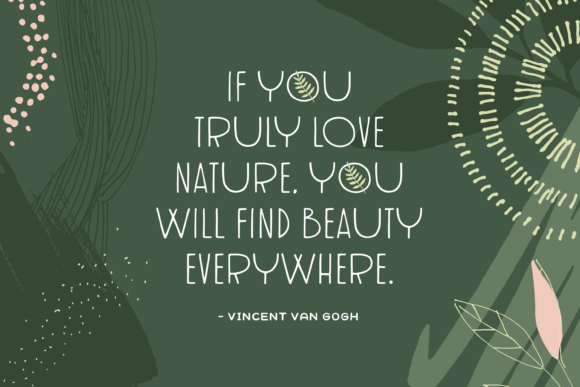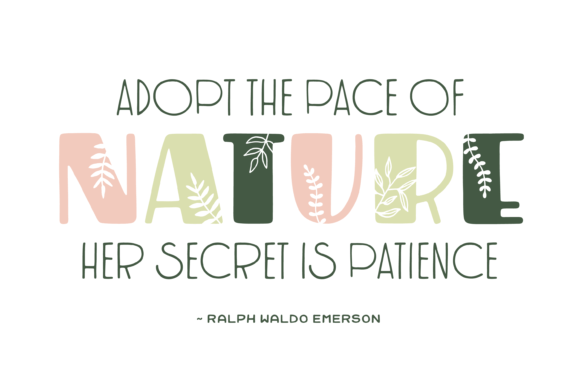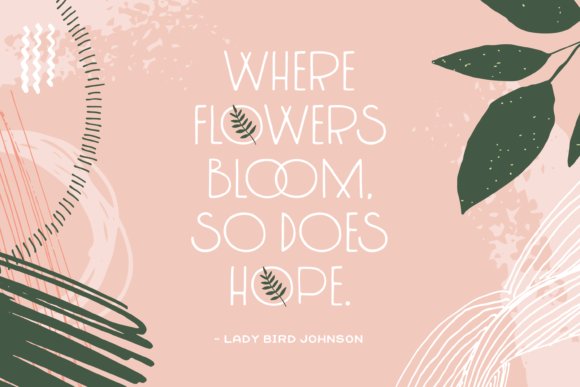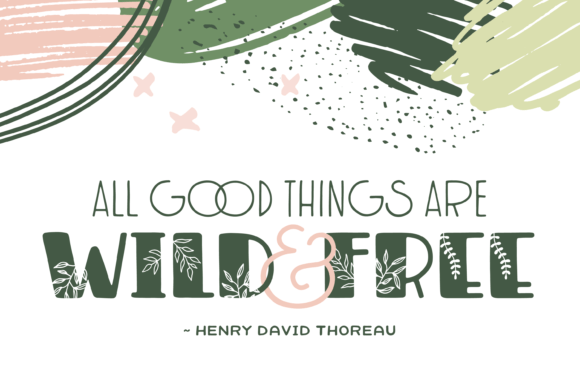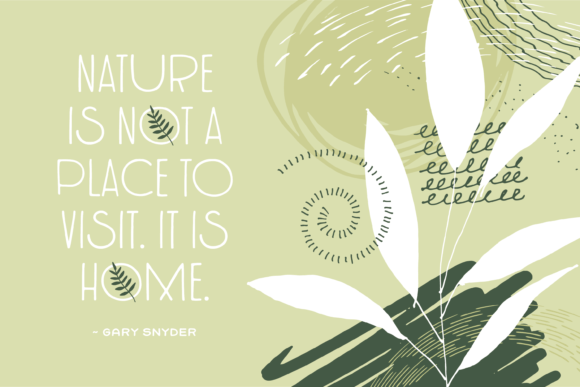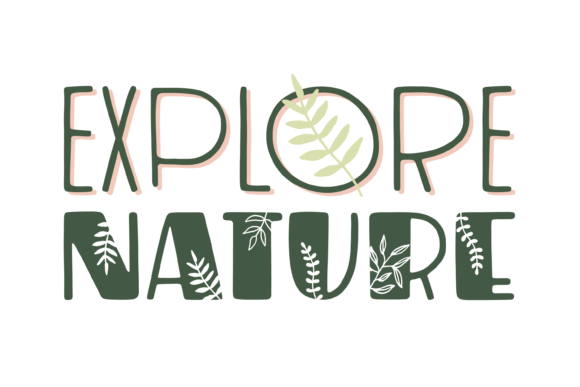
Introducing Flora & Francie Font: A Retro-Inspired Duo for Stunning Typography
In the world of typography, fonts play a crucial role in conveying messages, evoking emotions, and creating visual identities. For designers and crafters, finding the perfect font can be a daunting task. However, if you’re looking for a unique and elegant font that can elevate your typography, look no further than Flora & Francie Font. This all-caps, retro-inspired duo is designed to make your typography stand out with its beautiful contrast of thick and thin fonts.
The Beauty of Flora & Francie Font
Flora & Francie Font is a thoughtfully crafted font duo that consists of two complementary fonts: a bold font and a plain font. The bold font comes in two versions: an uppercase plain version and a lowercase version decorated with leaves. This unique combination provides an elegant and distinctive feel that’s perfect for a wide range of design projects. Whether you’re working on a logo, branding materials, or craft projects, Flora & Francie Font is sure to impress.
Key Features of Flora & Francie Font
- All-caps design: Flora & Francie Font is designed specifically for all-caps typography, making it perfect for headlines, titles, and emphasis.
- Retro-inspired aesthetic: The font duo boasts a charming retro vibe that’s reminiscent of classic typography from the past.
- Thick and thin fonts: The bold font and plain font provide a beautiful contrast that adds visual interest to your typography.
- Leaf-decorated lowercase: The bold font’s lowercase version features delicate leaf decorations, adding an extra touch of elegance and whimsy.
Why Choose Flora & Francie Font?
So, what sets Flora & Francie Font apart from other fonts? Here are a few reasons why designers and crafters love this font duo:
- Unique and distinctive: Flora & Francie Font offers a one-of-a-kind look that’s sure to make your typography stand out.
- Elegant and sophisticated: The font duo exudes elegance and refinement, making it perfect for high-end branding and design projects.
- Versatile: Flora & Francie Font can be used for a wide range of design projects, from logos and branding materials to craft projects and digital media.
- Easy to read: Despite its unique design, Flora & Francie Font remains highly legible, even at smaller sizes.
Using Flora & Francie Font in Your Design Projects
Flora & Francie Font is an incredibly versatile font duo that can be used in a variety of design projects. Here are a few ideas to get you started:
- Logos and branding materials: Use Flora & Francie Font to create stunning logos, business cards, and other branding materials that exude elegance and sophistication.
- Craft projects: Add a touch of whimsy and charm to your craft projects, such as papercraft, scrapbooking, and DIY signs.
- Digital media: Use Flora & Francie Font in your digital media, such as social media graphics, blog posts, and website headers.
Flora & Francie Font is a beautiful and unique font duo that’s perfect for designers and crafters looking to elevate their typography. With its retro-inspired aesthetic, elegant design, and versatile uses, this font duo is sure to become a favorite in your design arsenal. Whether you’re working on a logo, branding materials, or craft projects, Flora & Francie Font is the perfect choice for adding a touch of sophistication and whimsy to your design.